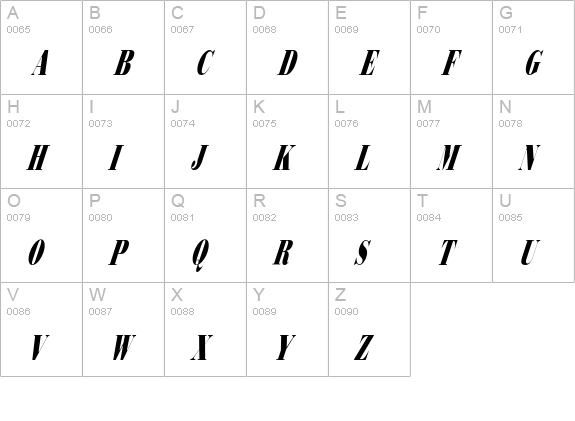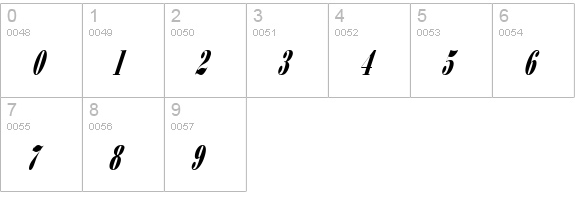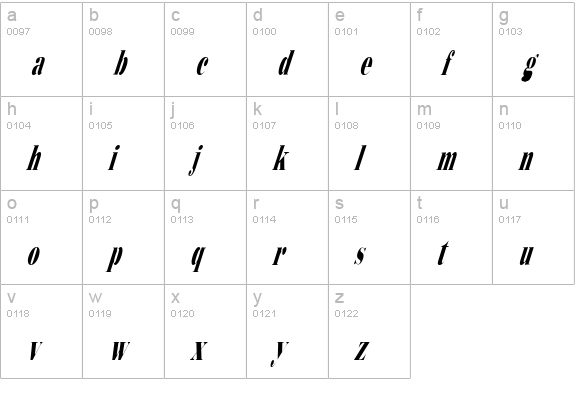
Bodidly-Conde 2 Font Details
Introducing Bodidly-Conde 2, a sleek and modern font that is perfect for adding a touch of sophistication to any project. This versatile typeface combines elegance with a contemporary edge, making it ideal for a wide range of design applications. With its clean lines and stylish flair, Bodidly-Conde 2 exudes a sense of professionalism and creativity. What sets Bodidly-Conde 2 apart is not only its striking appearance but also the fact that it is available for free download at FontsMarket.com. This means that you can easily access this premium font without having to break the bank. Whether you're working on a branding project, website design, or any other creative endeavor, Bodidly-Conde 2 is sure to elevate your work to the next level. Don't miss out on the opportunity to enhance your designs with Bodidly-Conde 2. Download this exquisite font for free today and unleash your creativity like never before!